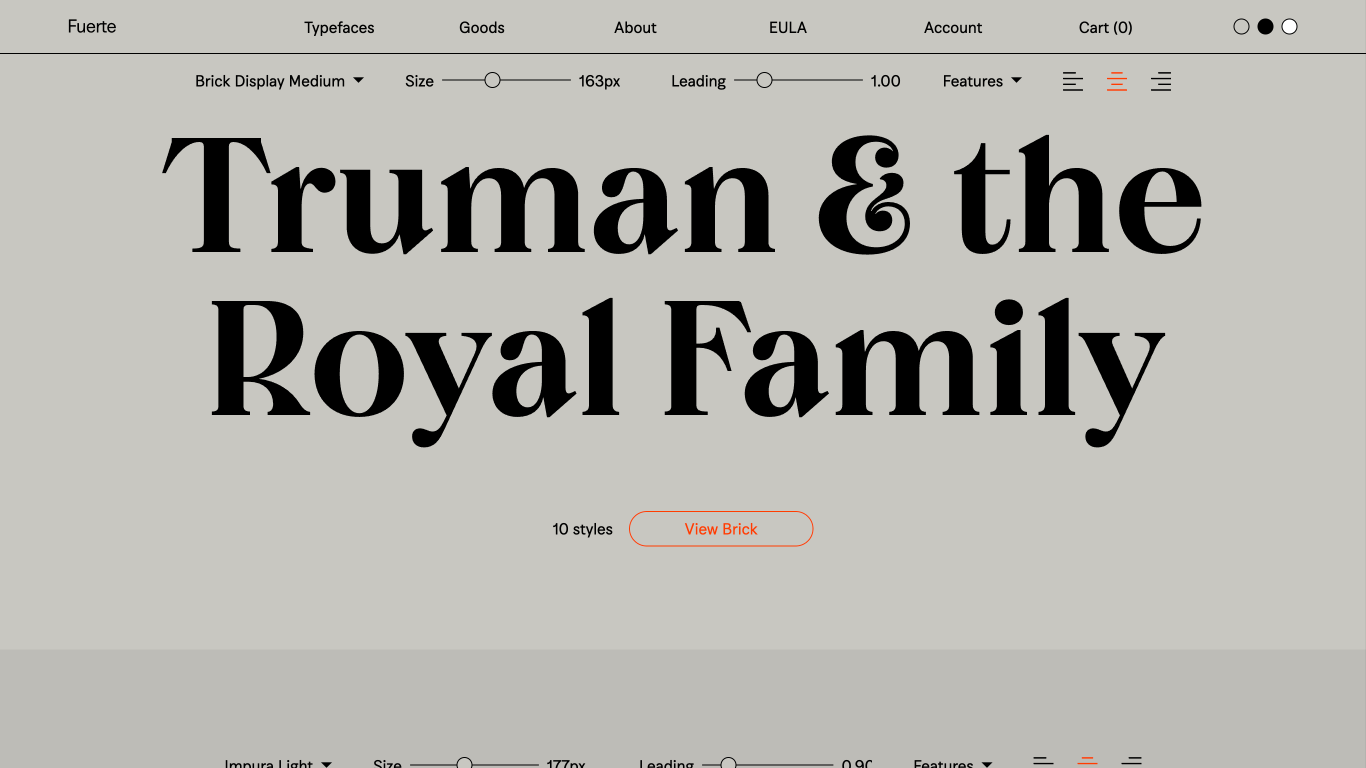
Fuerte Type
United Arab Emirates; Uruguay
2022
​Fuerte Type is an independent type design studio founded by Fermín Guerrero, operating from Dubai, UAE, and Colonia, Uruguay. The studio is dedicated to developing meticulously crafted typefaces with strong graphic appeal, blending technical and optical precision with concepts rooted in graphic design practice. Their unique approach combines modern technicality with historical influences, resulting in distinctive typefaces like Sakral, which balances medieval imagery with contemporary design.